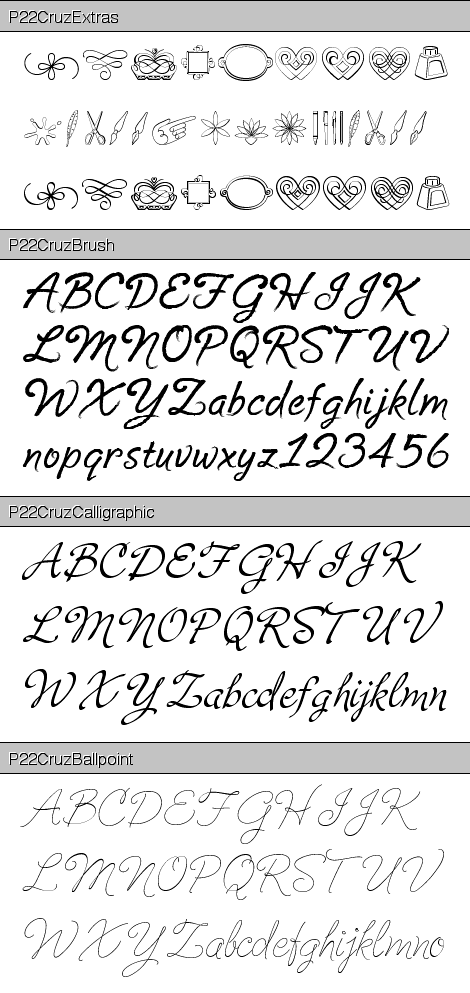
Cruz Script Set (International House of Fonts)
P22 Cruz Ballpoint, P22 Cruz Brush, and P22 Cruz Calligraphic is a new set of fonts from Ray Cruz featuring three styles of a script lettering. Designed to compliment and enhance each other, this set also includes an "extras"FONTHAUS END USER LICENSE AGREEMENT